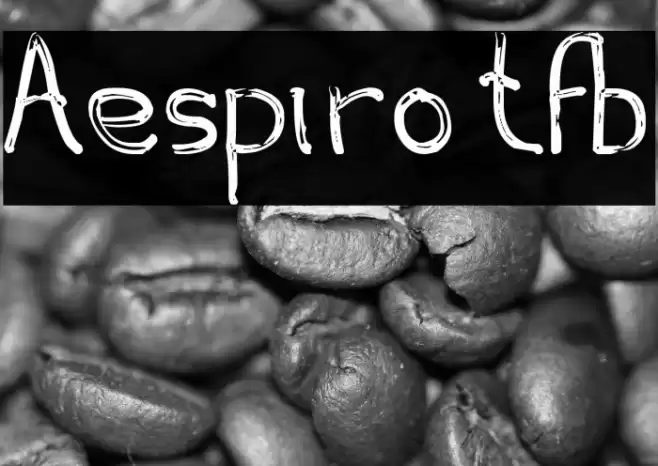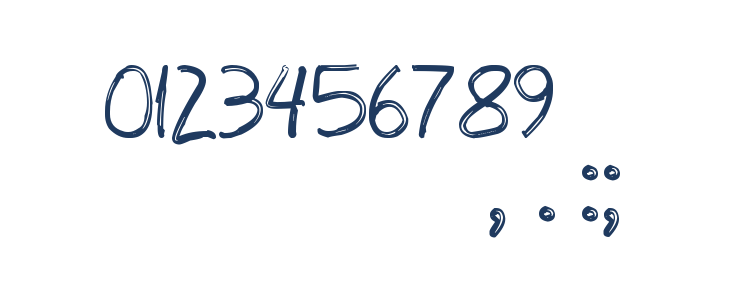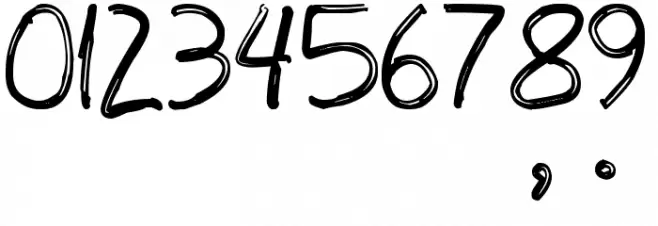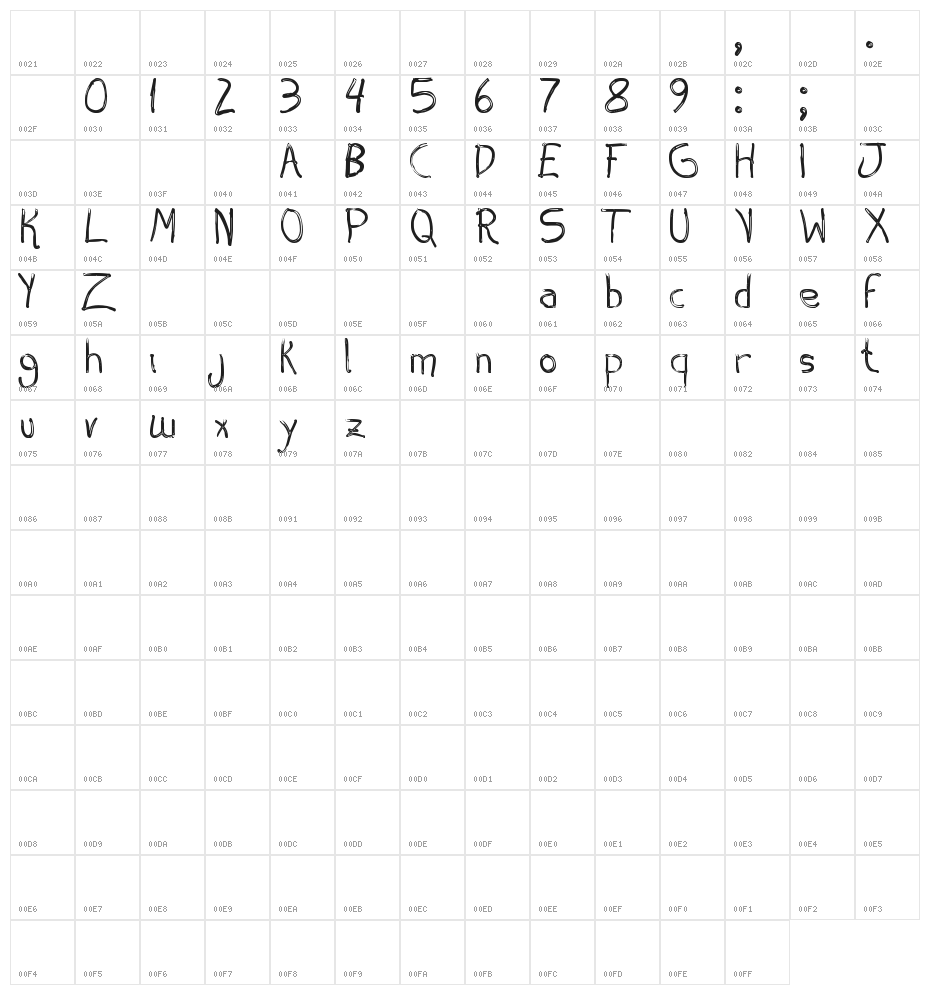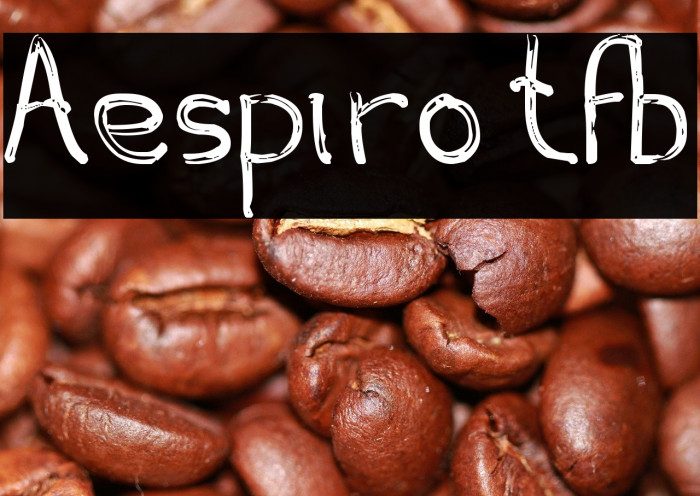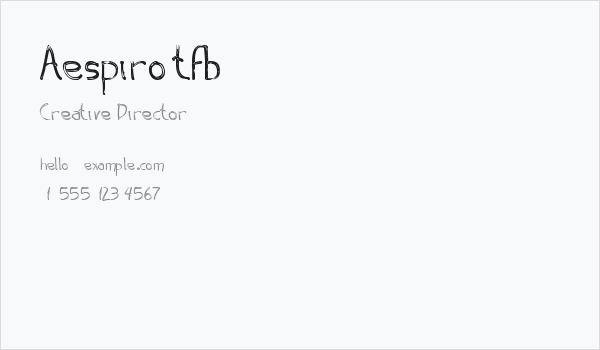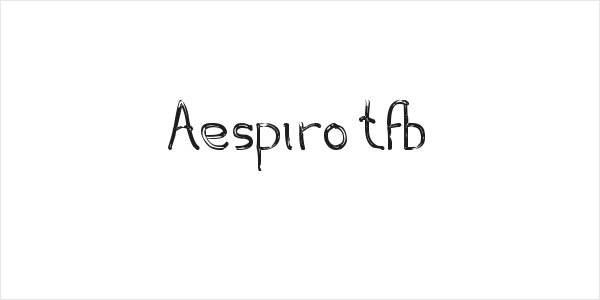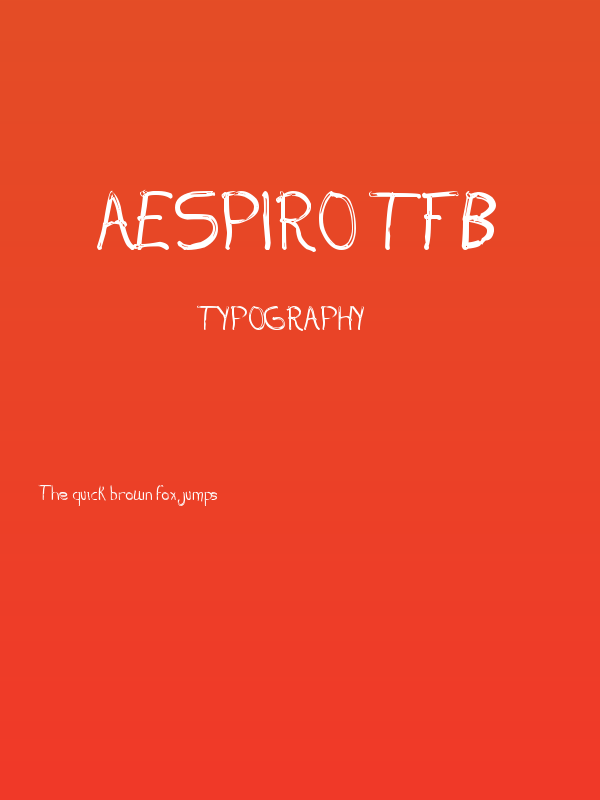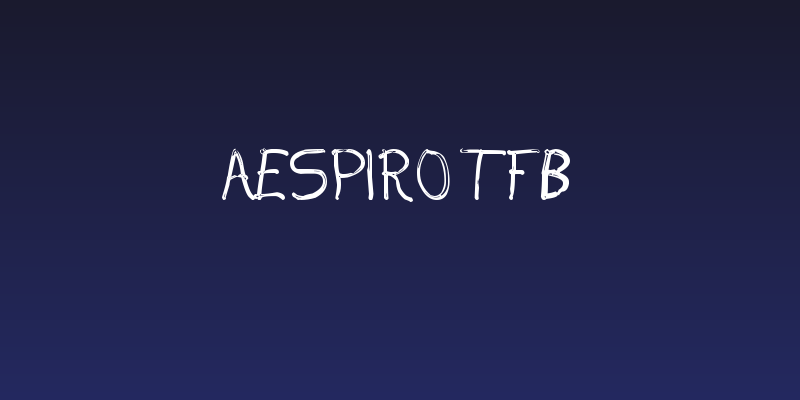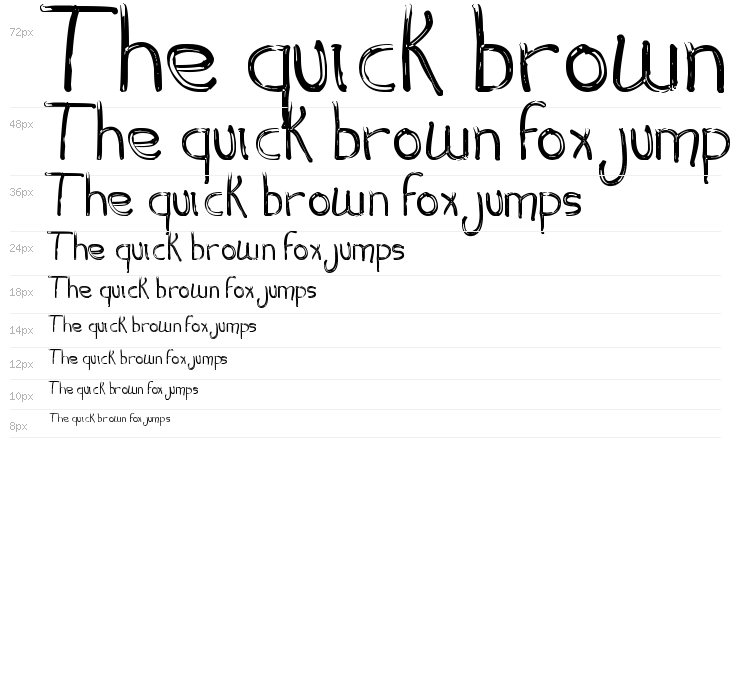
Aespiro tfb Font
Aespiro tfb Description
This font features a playful and artistic style, characterized by its hand-drawn appearance and uneven stroke widths. The letters have a whimsical, almost cartoonish quality, with irregular curves and a slightly rough texture that adds to its charm. The uppercase and lowercase letters maintain a consistent style, with a casual and informal feel. The numerals and special characters follow the same design approach, ensuring a cohesive look across all glyphs. This font is ideal for creative projects that require a touch of personality and uniqueness.
A playful, hand-drawn font with an artistic and whimsical style from Uncategorized fonts.